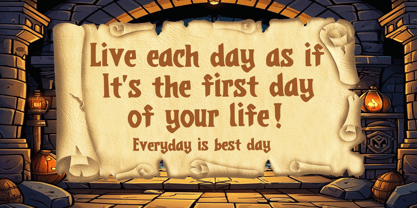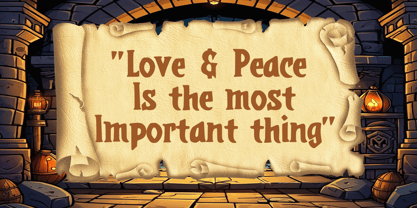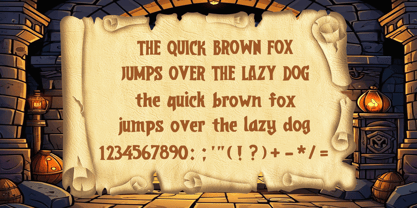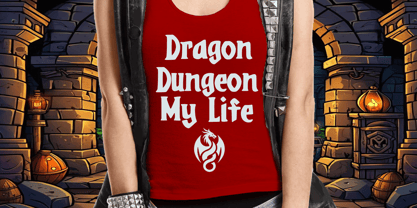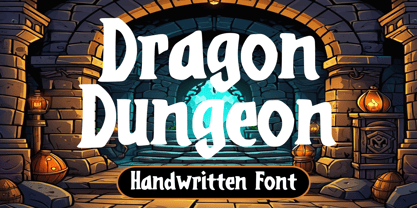
Dragon Dungeon
by Mvmet
The Dragon Dungeon Font Family was designed by Gabriel Valentinus and published by Mvmet. Dragon Dungeon contains 1 styles. More about this family
Dragon Dungeon is a fun and playful antique medieval-themed font, inspired by 90s tabletop games and fantasy cartoons. You can use it for anything ranging from t-shirts, kids’ book designs, game designs, and greeting cards to stickers and posters, or anything that needs a middle-ages vibe. Fall in love with its incredibly versatile style and use it to create lovely designs!
Designers: Gabriel Valentinus
Foundry: Mvmet